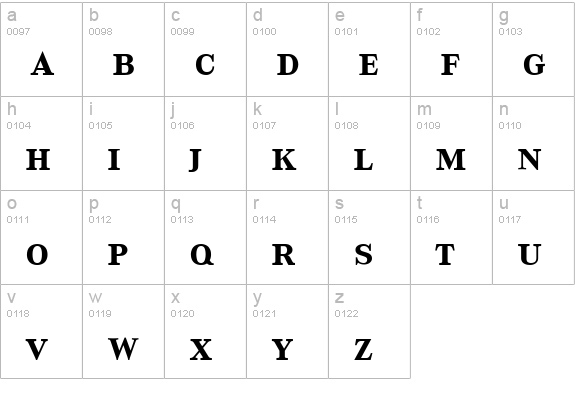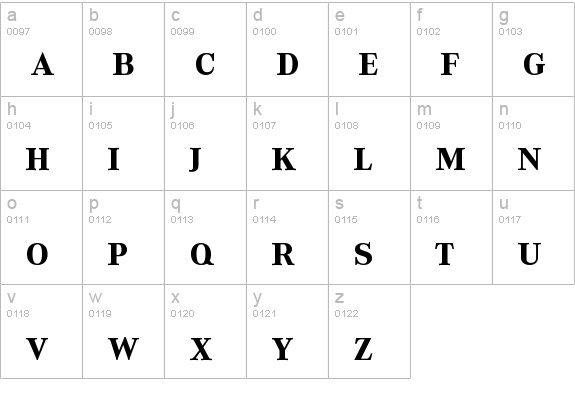
Corporate A Expert Bold Font Details
Corporate A Expert Bold is a strong, high-contrast variant in the Corporate typeface family \xE2\x80\x94 well suited to headlines, attention-grabbing titles, and strong calls-to-action.
Introducing Corporate A Expert Bold font, a dynamic and modern typeface designed for corporate and professional use. With its sleek lines and confident design, this font exudes authority and sophistication, making it perfect for branding, business presentations, and marketing materials. What sets Corporate A Expert Bold font apart is its versatility and readability, making it suitable for a wide range of applications. Whether you're designing a sleek logo or crafting a professional report, this font will elevate your project to the next level. And the best part? Corporate A Expert Bold font is available for free download at FontsMarket.com. That's right, you can get your hands on this premium font without breaking the bank. Don't miss out on this opportunity to enhance your designs with the bold and impactful Corporate A Expert Bold font. Download it today and take your projects to new heights.